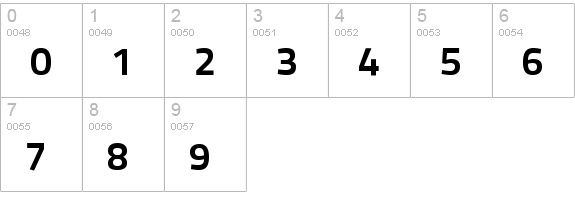
TitilliumText14L 800 wt Font Details
TitilliumText14L 800 wt font is a bold and impactful typeface that exudes strength and confidence. With its thick strokes and commanding presence, this font is perfect for making a bold statement in your designs. Whether you're creating eye-catching headlines or powerful branding materials, TitilliumText14L 800 wt font is sure to grab attention. The best part? This impressive font is available for free download at FontsMarket.com, making it accessible to designers and creatives looking to elevate their projects without breaking the bank. Embrace the power and versatility of TitilliumText14L 800 wt font today and take your designs to the next level!